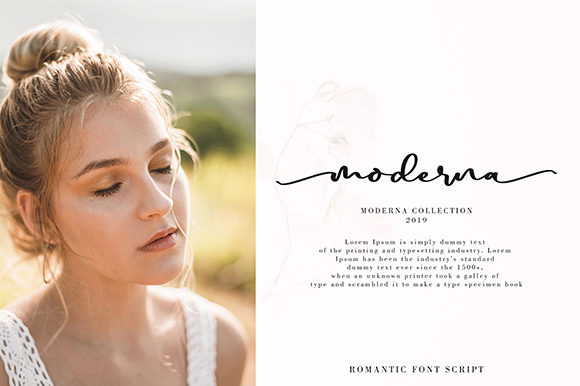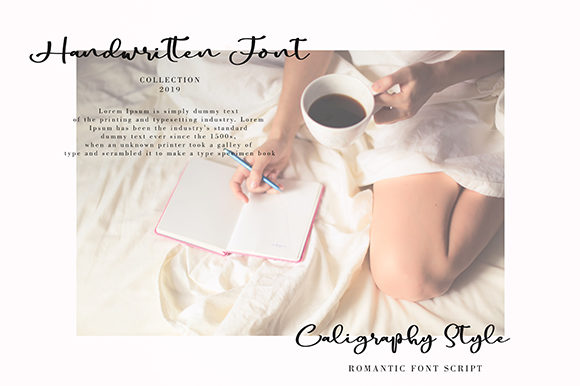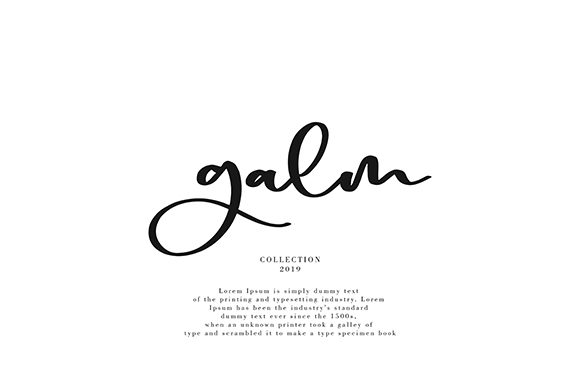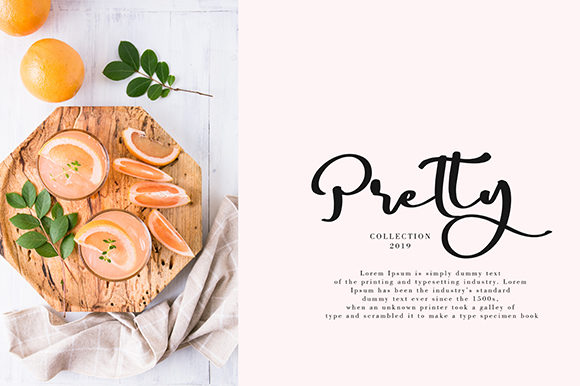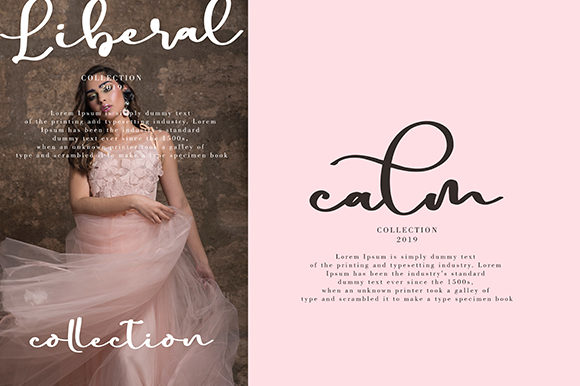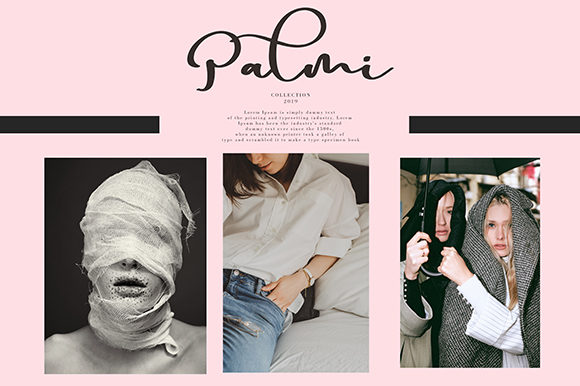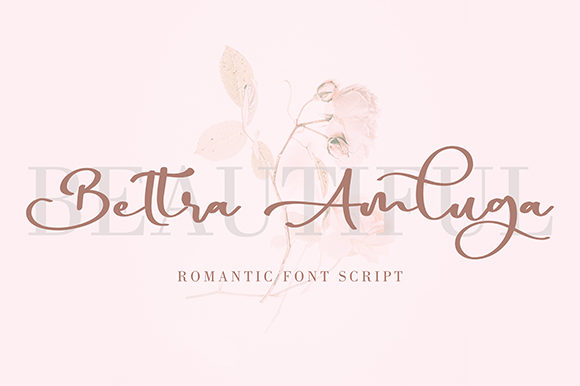
Bettra Amluga Font: A Sweet and Charming Script for Designers and Crafters
In the world of typography, fonts play a crucial role in bringing designs to life. For designers and crafters, finding the perfect font can be a daunting task, especially when looking for something unique and eye-catching. This is where Bettra Amluga Font comes in – a sweet and charming script that can easily add a personal twist to any design idea.
What is Bettra Amluga Font?
Bettra Amluga Font is a beautifully crafted script font that exudes elegance and sophistication. Its unique charm lies in its flowing lines, delicate strokes, and whimsical flair, making it perfect for a wide range of design projects. Whether you’re working on a logo, branding materials, or craft projects, Bettra Amluga Font is sure to make your designs stand out.
Key Features of Bettra Amluga Font
- Unique and Eye-catching: Bettra Amluga Font boasts a distinctive style that sets it apart from other fonts. Its charming script and flowing lines make it perfect for designs that require a personal touch.
- Highly Versatile: This font can be used for a wide range of design projects, from logos and branding materials to craft projects, invitations, and more.
- Elegant and Sophisticated: Bettra Amluga Font exudes elegance and sophistication, making it perfect for designs that require a touch of refinement.
- Easy to Read: Despite its unique style, Bettra Amluga Font is easy to read, making it perfect for designs that require a clear and concise message.
How to Use Bettra Amluga Font in Your Designs
Using Bettra Amluga Font in your designs is easy. Here are a few tips to get you started:
- Pair it with Other Fonts: Bettra Amluga Font pairs well with other fonts, especially sans-serif fonts. Try pairing it with a clean and simple font to create a beautiful contrast.
- Use it for Headings and Titles: Bettra Amluga Font is perfect for headings and titles. Use it to add a touch of elegance and sophistication to your designs.
- Add a Personal Touch: Bettra Amluga Font is perfect for adding a personal touch to your designs. Use it to create custom logos, branding materials, and craft projects.
Benefits of Using Bettra Amluga Font
Using Bettra Amluga Font in your designs comes with a range of benefits, including:
- Unique and Memorable Designs: Bettra Amluga Font helps create unique and memorable designs that stand out from the crowd.
In conclusion, Bettra Amluga Font is a sweet and charming script that can easily add a personal twist to any design idea. Its unique charm, elegance, and sophistication make it perfect for a wide range of design projects. With its ease of use, versatility, and cost-effectiveness, Bettra Amluga Font is a must-have for designers and crafters looking to take their designs to the next level.